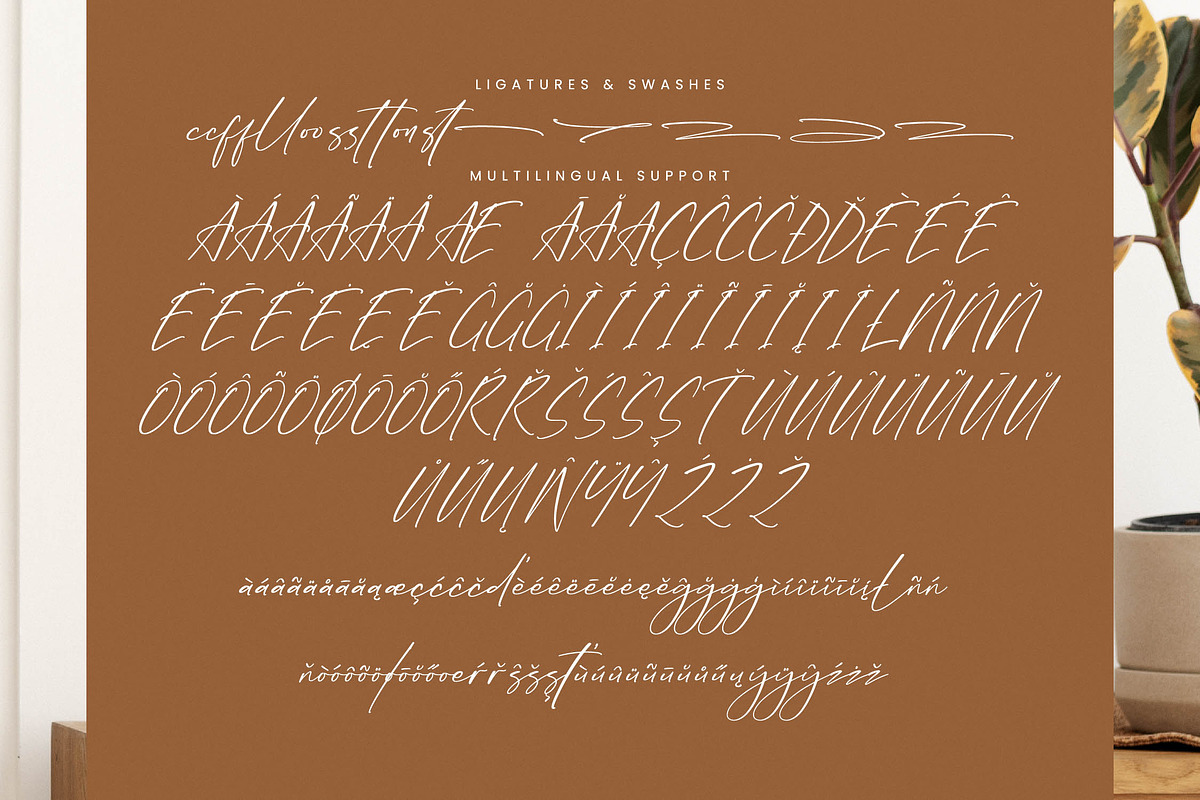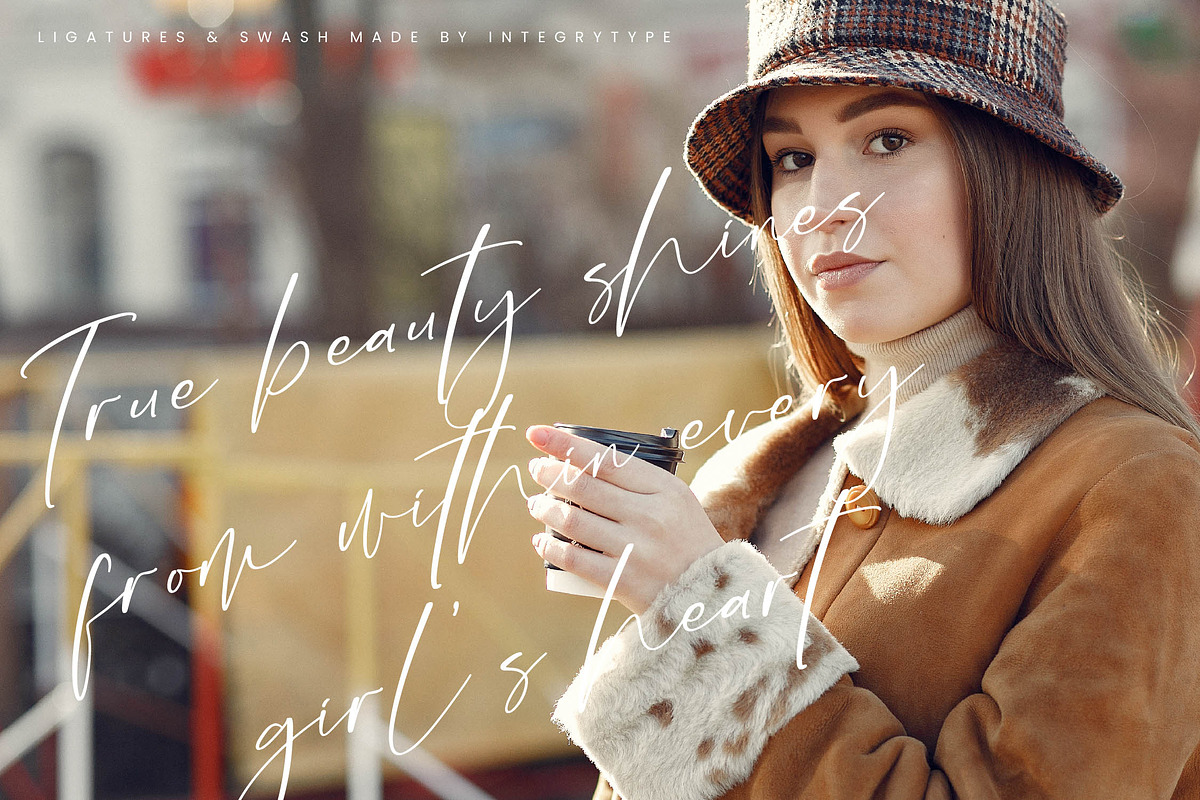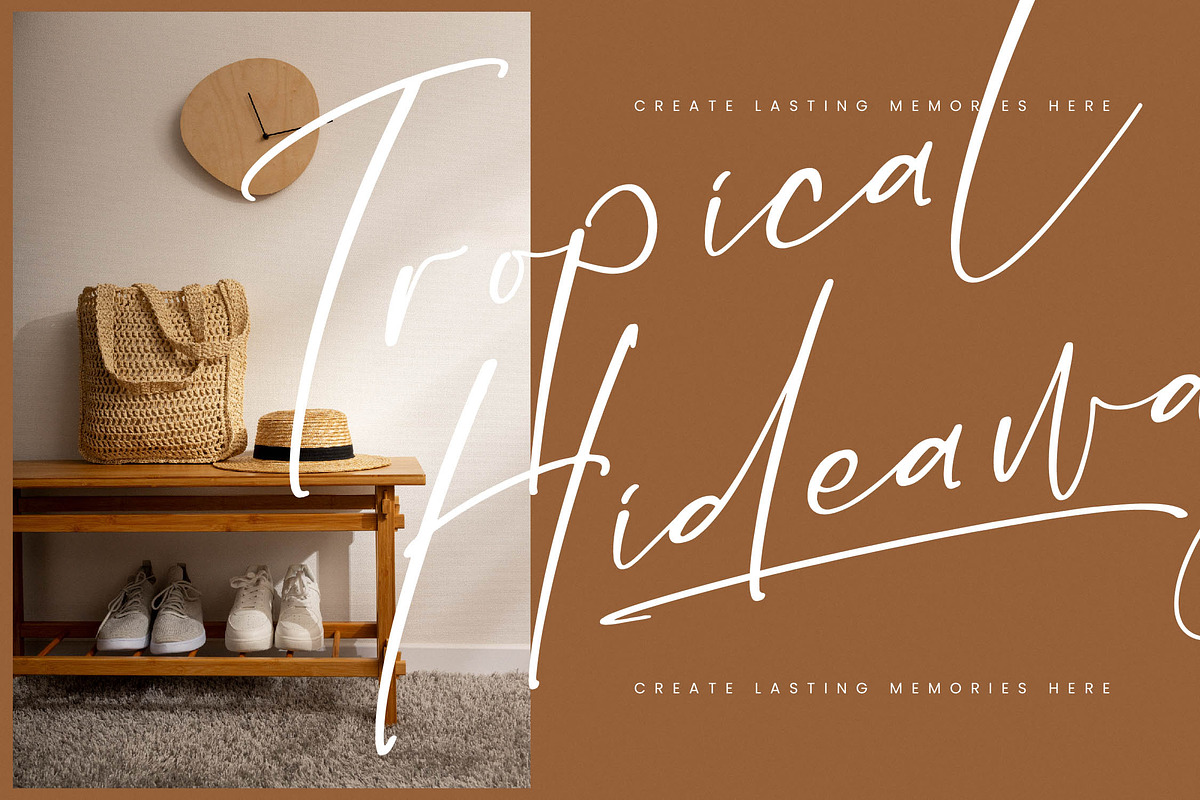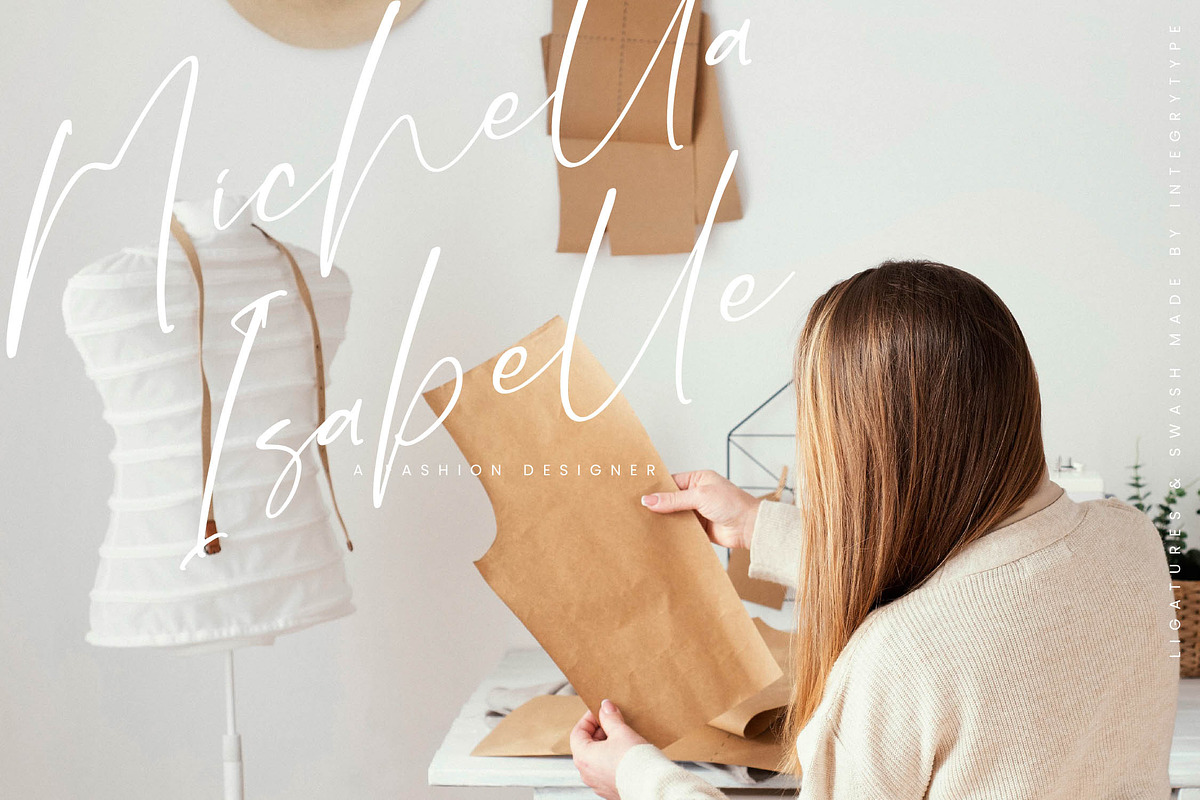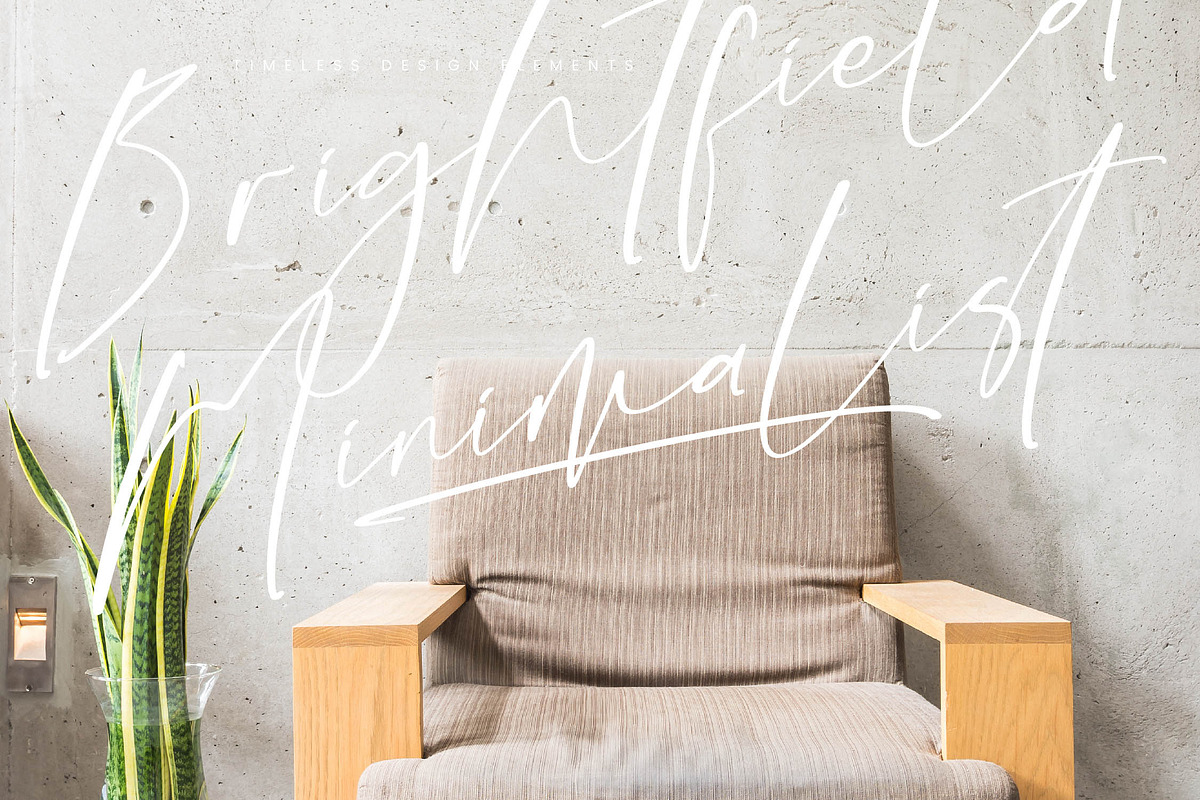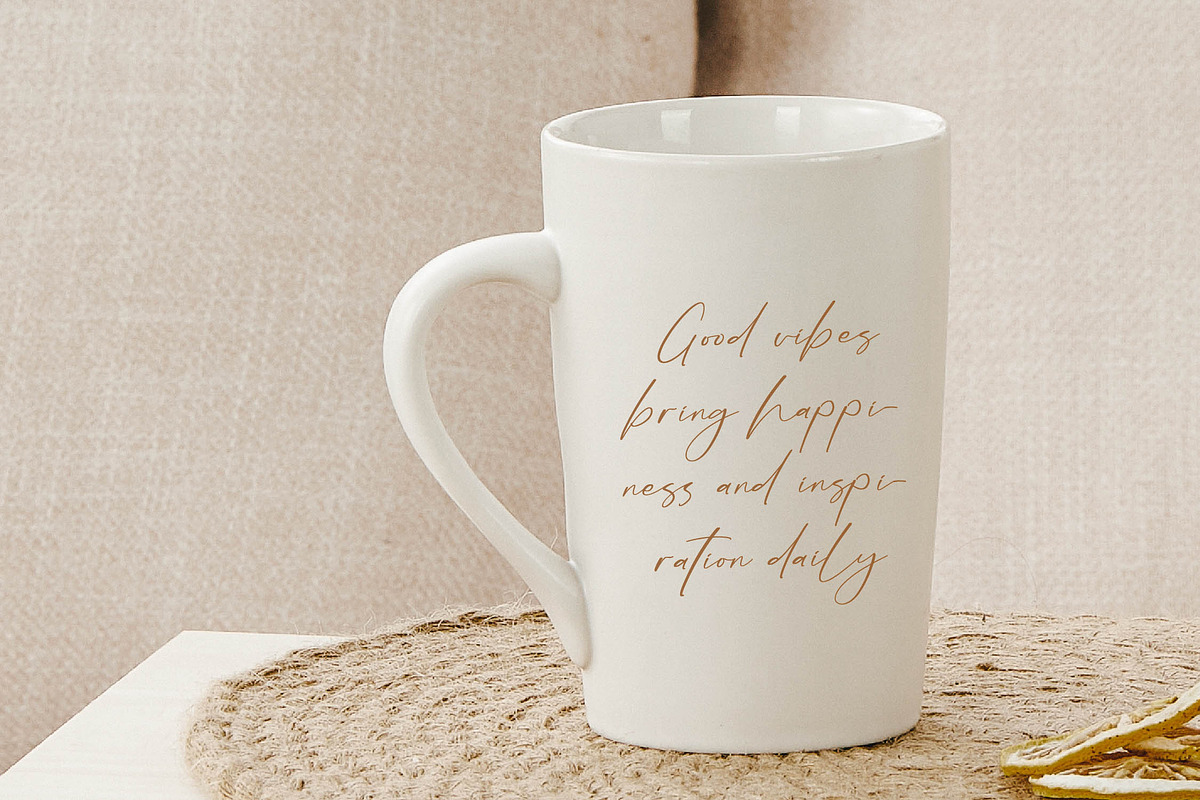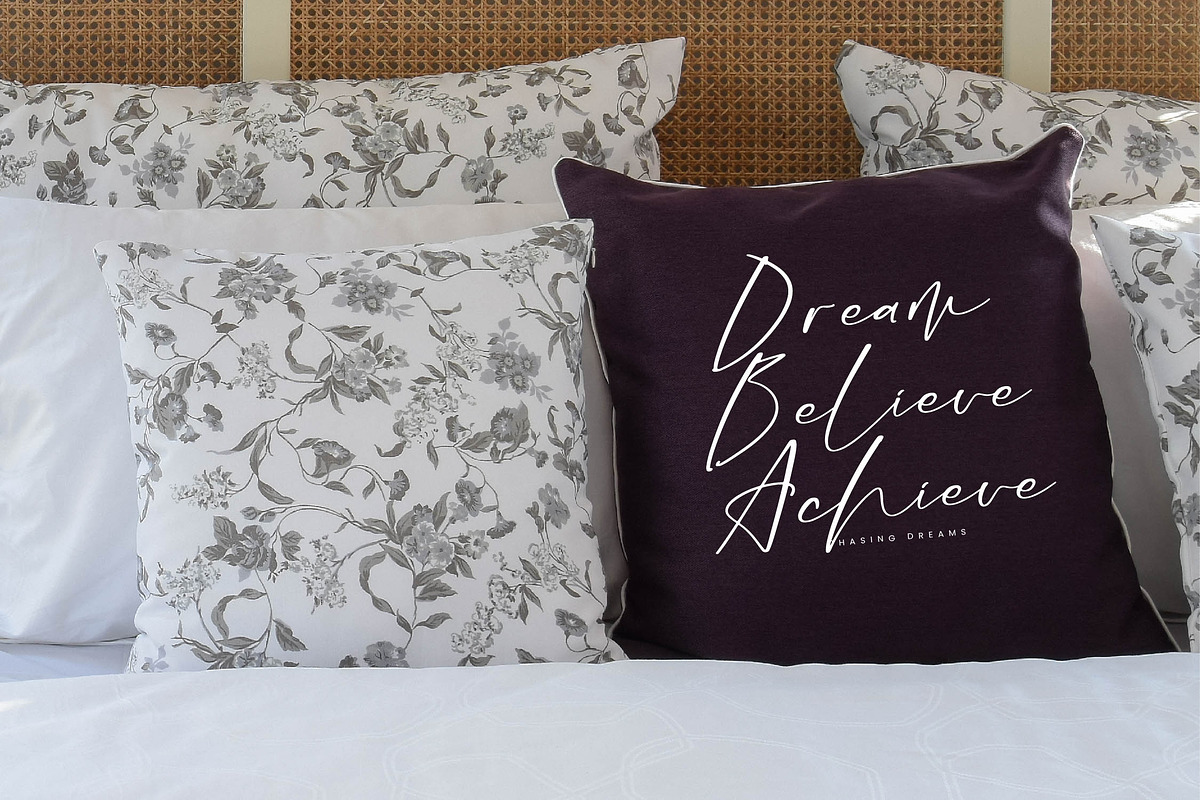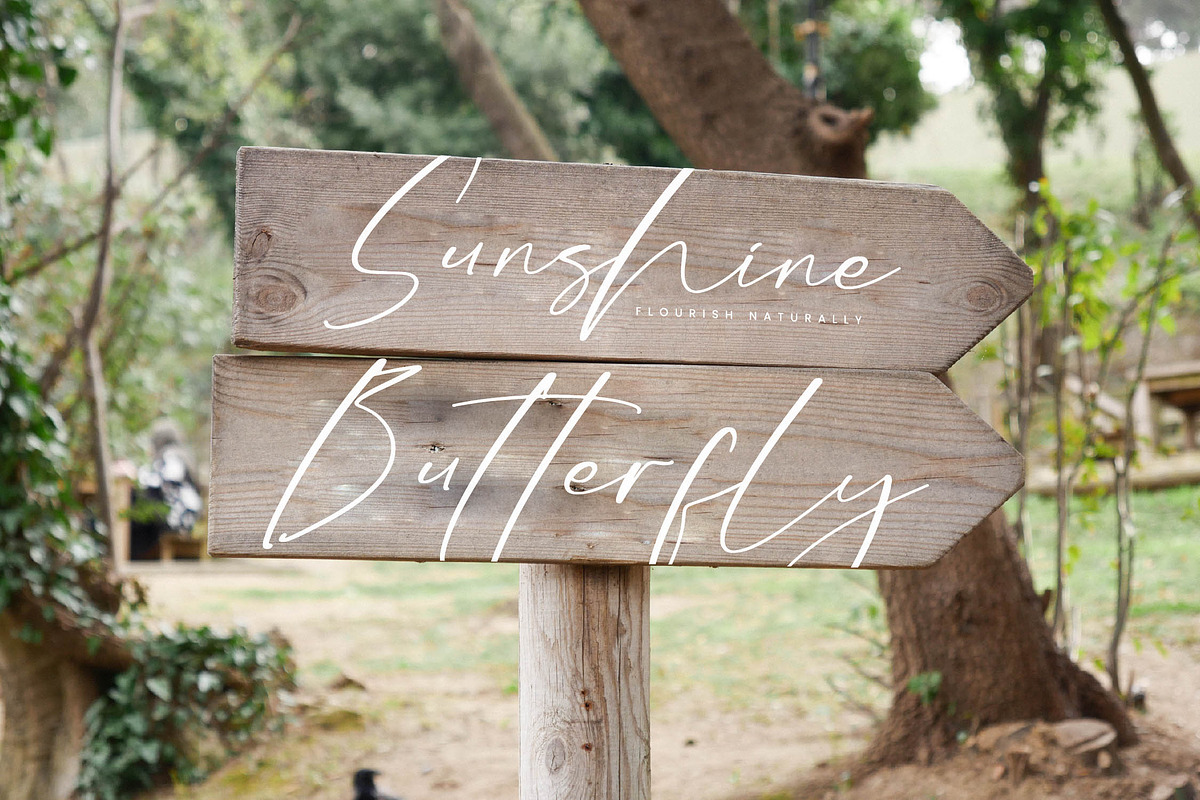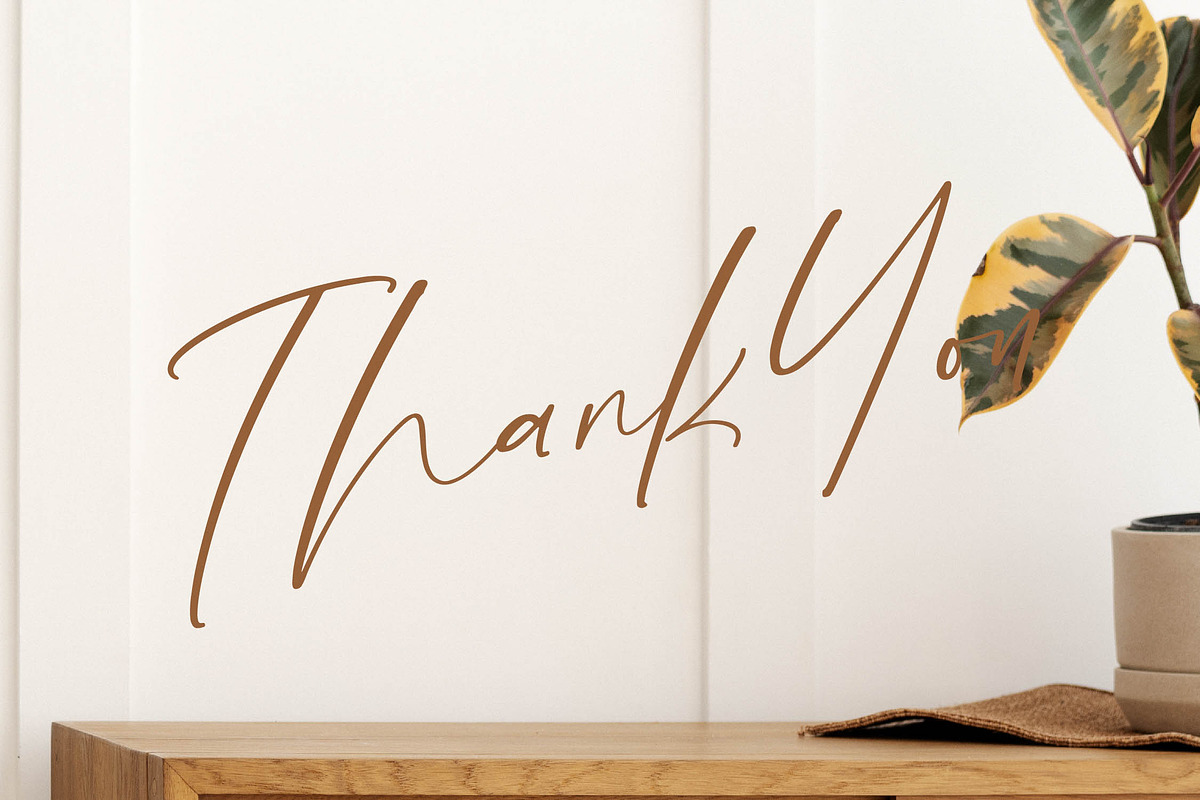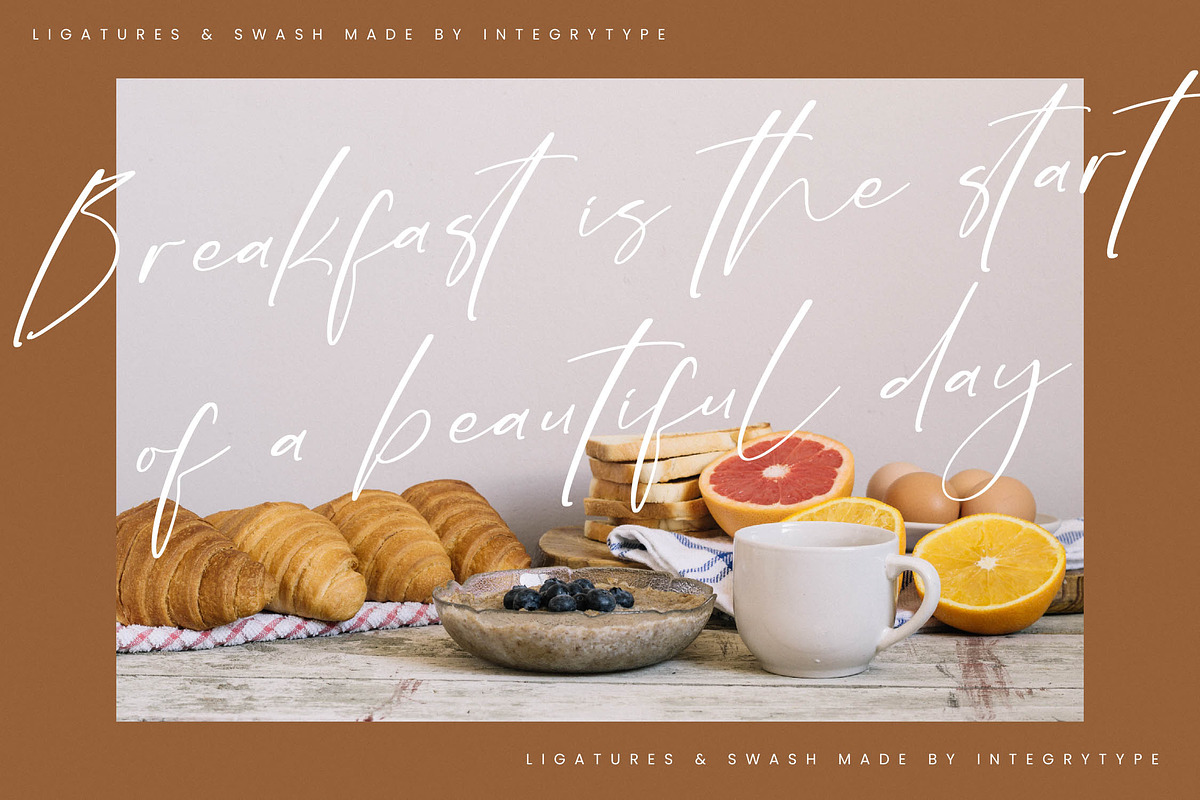
Bluebell Twilight
Bluebell Twilight - Stylish Signature Font, from Integritype Studio, perfect for any project like: logos, branding projects, homewares designs, product packaging, mugs, quotes, posters, shopping bags, t-shirts, covers books, business cards, invitation cards, greeting cards, labels, photography, watermarks, special events and all your other luxury projects that require a premium taste.
Ligatures, Alternate & Swashes